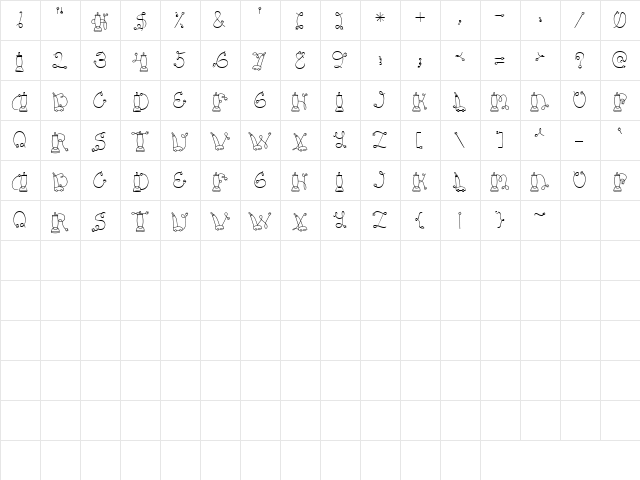
LD Vacuum Regular
Design Context for LD Vacuum Typeface
LD Vacuum is a composed and adaptable typeface that performs quietly and consistently across a wide range of design contexts.